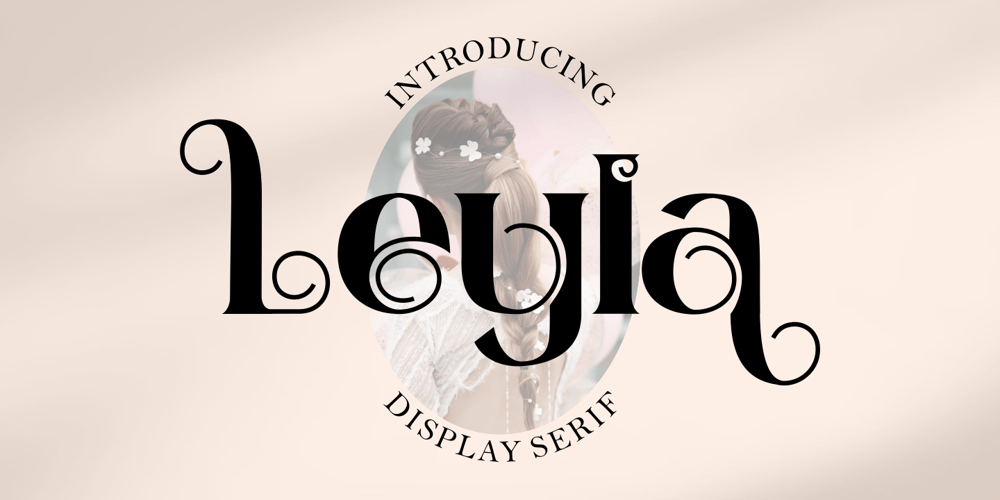
Layla Font Family was designed by Putra Novembria Candra Kusuma and published by Putracetol. Layla contains 2 styles and family package options. Introducing “Layla,” a stunning new display serif font that combines the luxury serif of the display cover with an elegant typeface style. With a lot of alternates character, you have a plethora of options to create unique and striking display lettering.Layla comes with open type features, including a vast selection of alternates and end swashes, allowing you to create stunning lettering designs. Additionally, Layla supports multi-language use, making it ideal for global designs.Layla is best used for various purposes, including Logotype, heading, cover, poster, logos, quotes, product packaging, header, merchandise, social media & greeting cards, and many more. Its versatility makes it a valuable addition to any designer’s toolkit.In the zip package, you will receive Layla in otf, ttf, and woff formats, with features that include uppercase and lowercase letters, opentype alternates and ligatures, numbers, punctuation, symbols, and multilanguage support.To access Layla’s alternate glyphs, you will need a program that supports OpenType features such as Adobe Illustrator CS, Adobe Photoshop CC, Adobe InDesign, and Corel Draw.Overall, Layla is an excellent font choice for anyone looking to add a touch of luxury and elegance to their designs. Its stunning design and high-quality features make it an ideal font for all your design needs, including print and digital media.